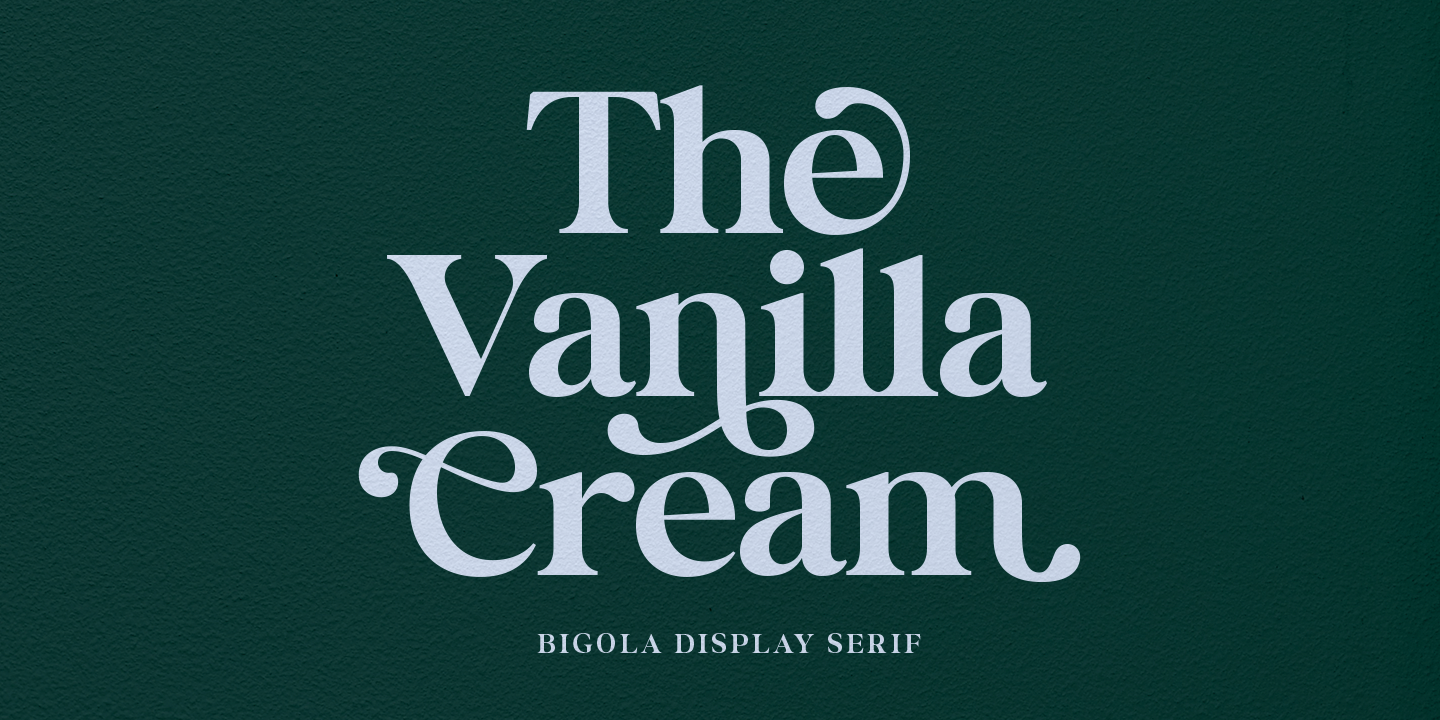
Bigola Display Font excels in various design applications including bold headlines, eye-catching posters, magazine covers, advertising banners, brand logos, digital signage, exhibition displays, and impactful social media graphics. This commanding typeface adapts powerfully to both striking digital campaigns and attention-grabbing print materials, making it perfect for designers seeking maximum visual impact and memorable display typography.
Bigola Display Font generates excitement among typography enthusiasts due to its massive presence and dramatic styling that instantly commands attention and creates unforgettable impressions. The font's bold letterforms and expansive proportions create an immediate sense of authority and visual dominance. Its commanding personality makes it particularly appealing for brands wanting to communicate strength, confidence, and powerful messaging in their visual communications.
The Bigola Display Font family encompasses multiple weights and styles including Regular, Bold, Light, Black, and Condensed variations. Each family member maintains impactful design principles while offering distinct display characteristics. The Light weight provides controlled impact for sophisticated applications, while the Black version delivers maximum visual power for headlines demanding absolute attention and dominance.
Display designers frequently choose Bigola Display Font Free Download for projects requiring both visual supremacy and brand memorability. This typeface demonstrates remarkable effectiveness across entertainment industries including advertising, media, fashion, and event promotion. Its commanding character allows organizations to communicate boldness while maintaining excellent readability and powerful visual presence that stops viewers and creates lasting impressions.